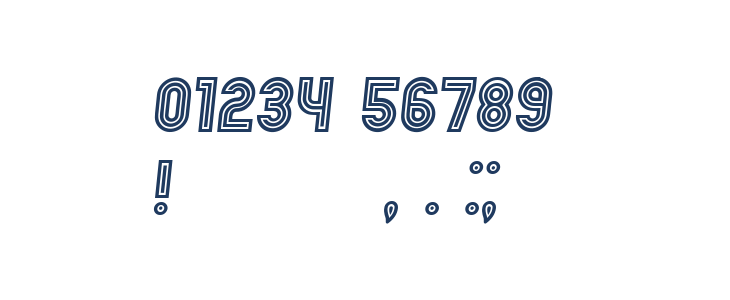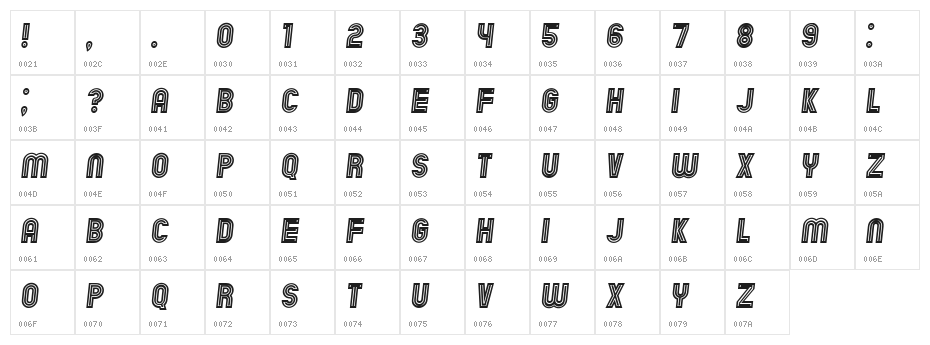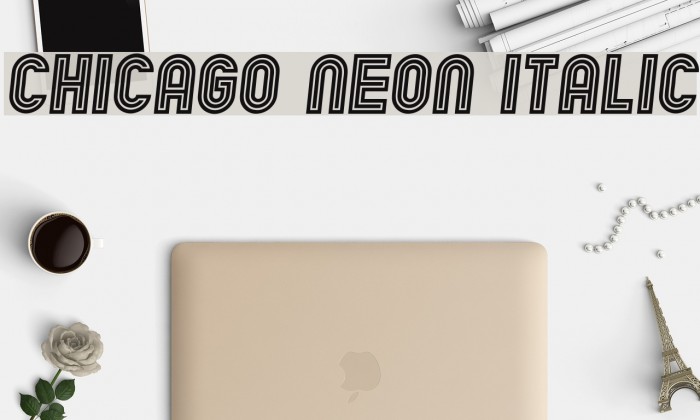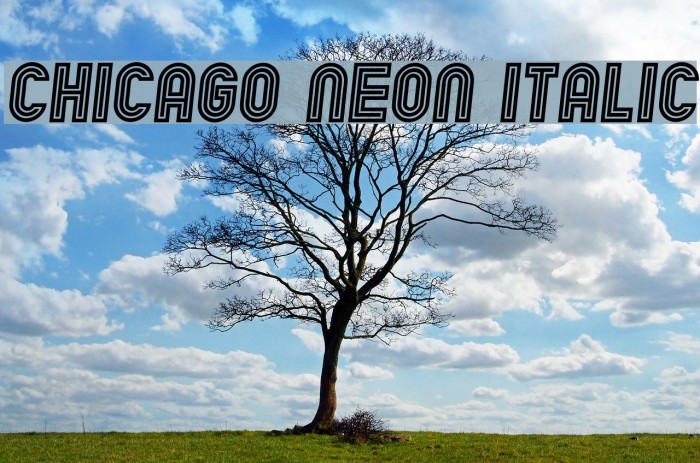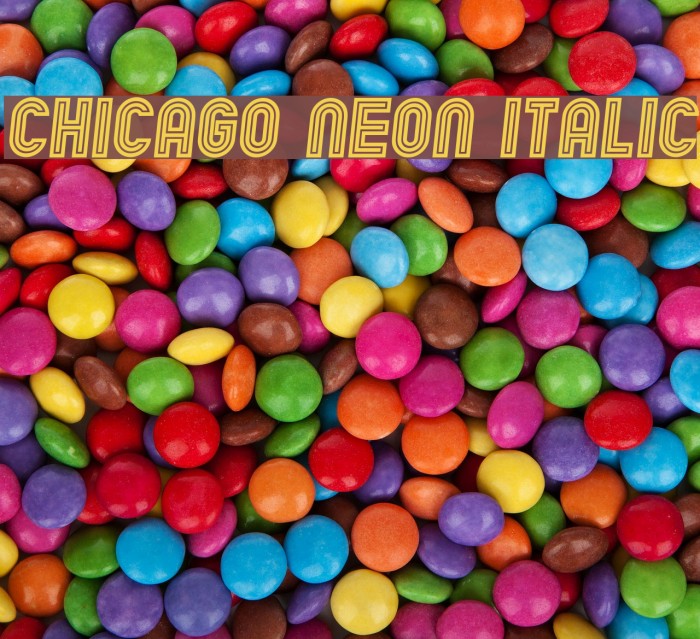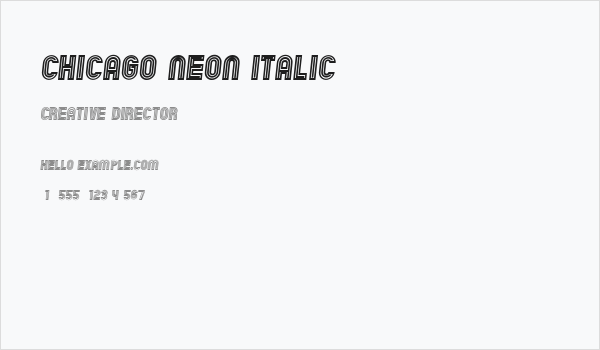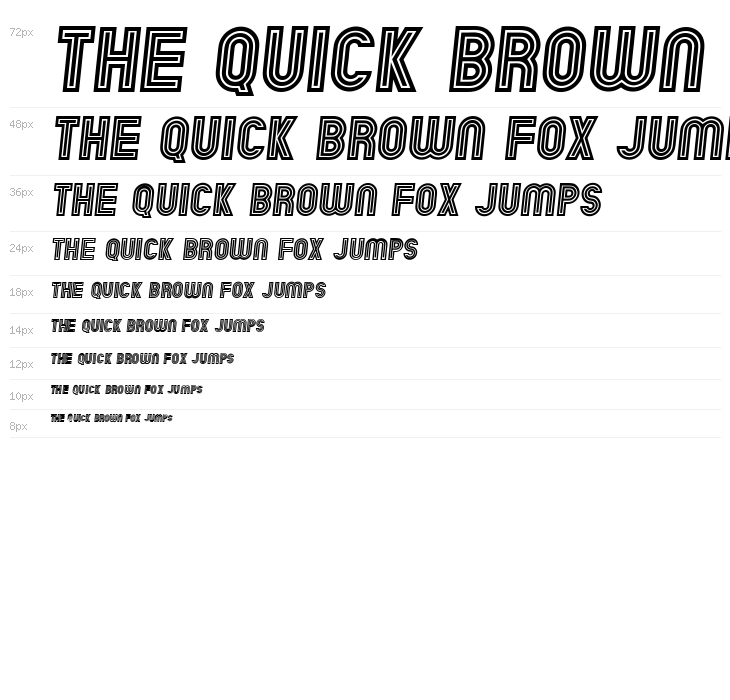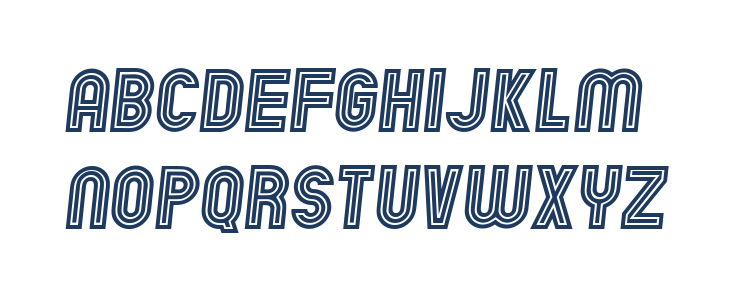
Chicago Neon Italic Font
Chicago Neon Italic Description
This font features a bold, italicized style with a distinctive neon outline effect. The characters are uppercase and numerals, with a double-line design that gives a sense of depth and dimension. The strokes are consistent in width, creating a uniform appearance across all characters. The font's unique style is reminiscent of vintage neon signs, making it ideal for projects that require a retro or eye-catching aesthetic. The spacing between characters is normal, ensuring readability while maintaining its decorative appeal.
| Use Case | Headlines, Logos, Signage |
| Proposed Projects | Ideal for creating vintage-inspired posters, signage, logos, and branding materials that require a striking and memorable look. |